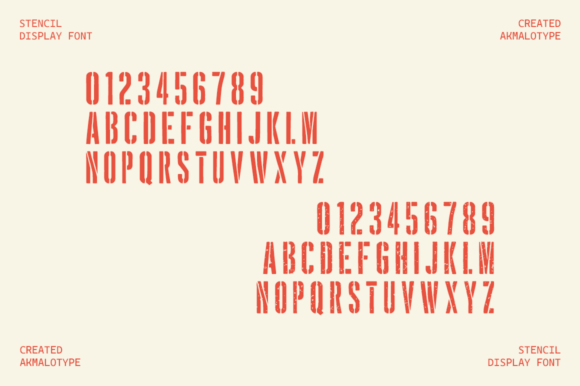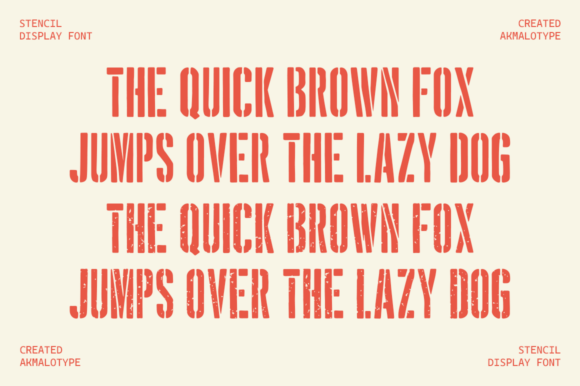
Marston Font – Free Download
Introduction to Marston Font
Experience the robustness of vintage allure through the enchanting craftsmanship of our font that pays homage to the past.
Embodying an all-caps, bold personality with a touch of refined distress, this font is a testament to enduring strength and masculine charisma The tall, sturdily built letterforms sport a rugged texture, reminiscent of a time-worn stencil or classic print design.
Key Features of Marston Font